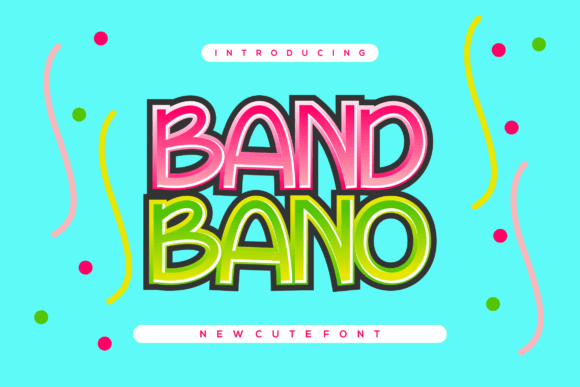
Introducing Bandbano, the font that will ignite your imagination and elevate your designs to new heights!
Bandbano is a captivating display font, crafted with precision to bring a touch of playfulness and personality to your projects. Its charming curves and energetic strokes will instantly grab attention, making it perfect for headlines, posters, branding, and any design that demands a bold and vibrant statement.
With Bandbano, you'll have an arsenal of creative possibilities at your fingertips. Its playful and endearing nature will add warmth and excitement to your designs, while its versatility ensures that it can seamlessly adapt to any project, from whimsical invitations to eye-catching social media graphics.
Step into the world of Bandbano and witness the transformation of your designs. It's the font that will redefine your creative vision and empower you to create captivating experiences that leave a lasting impression.